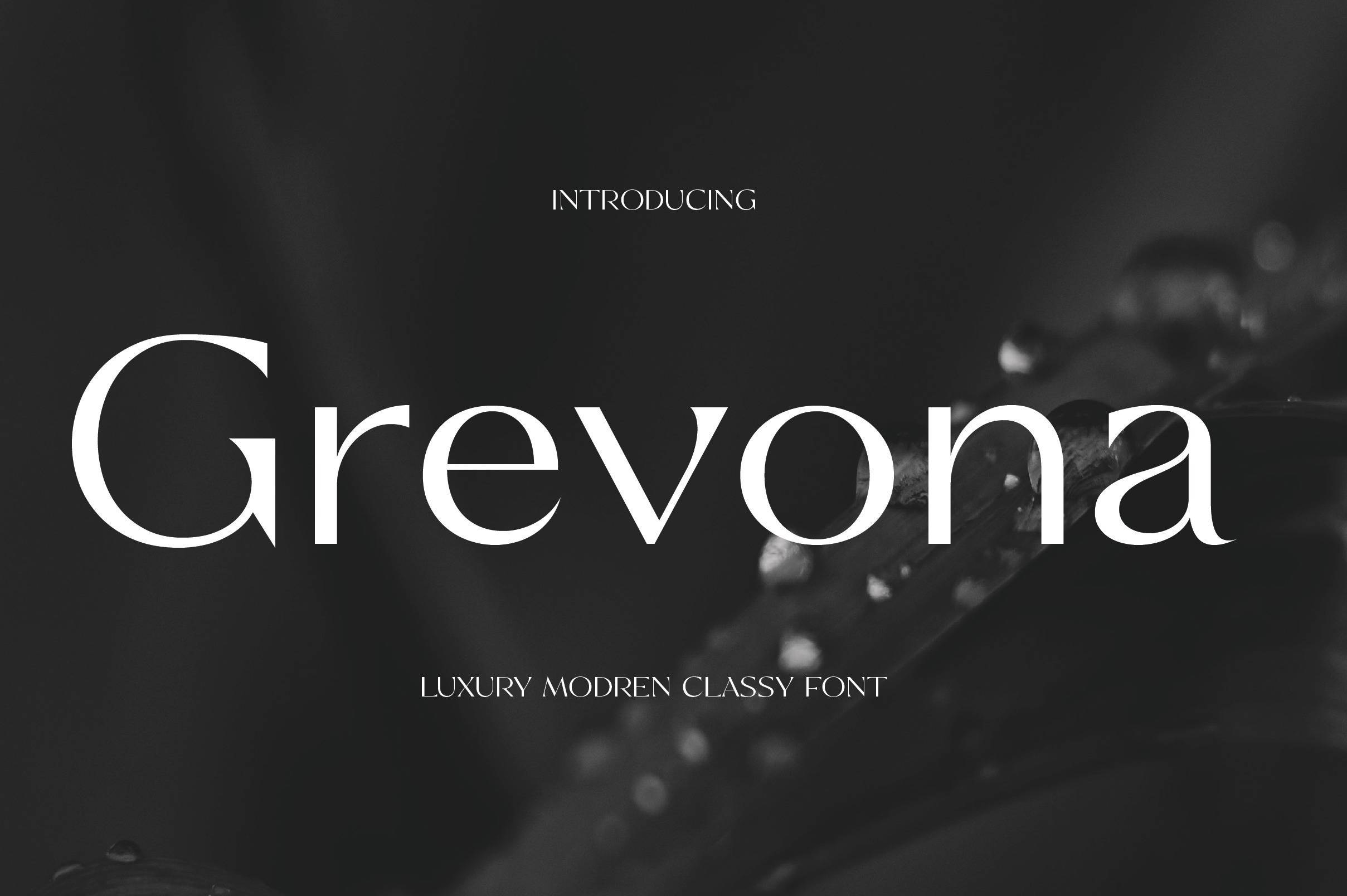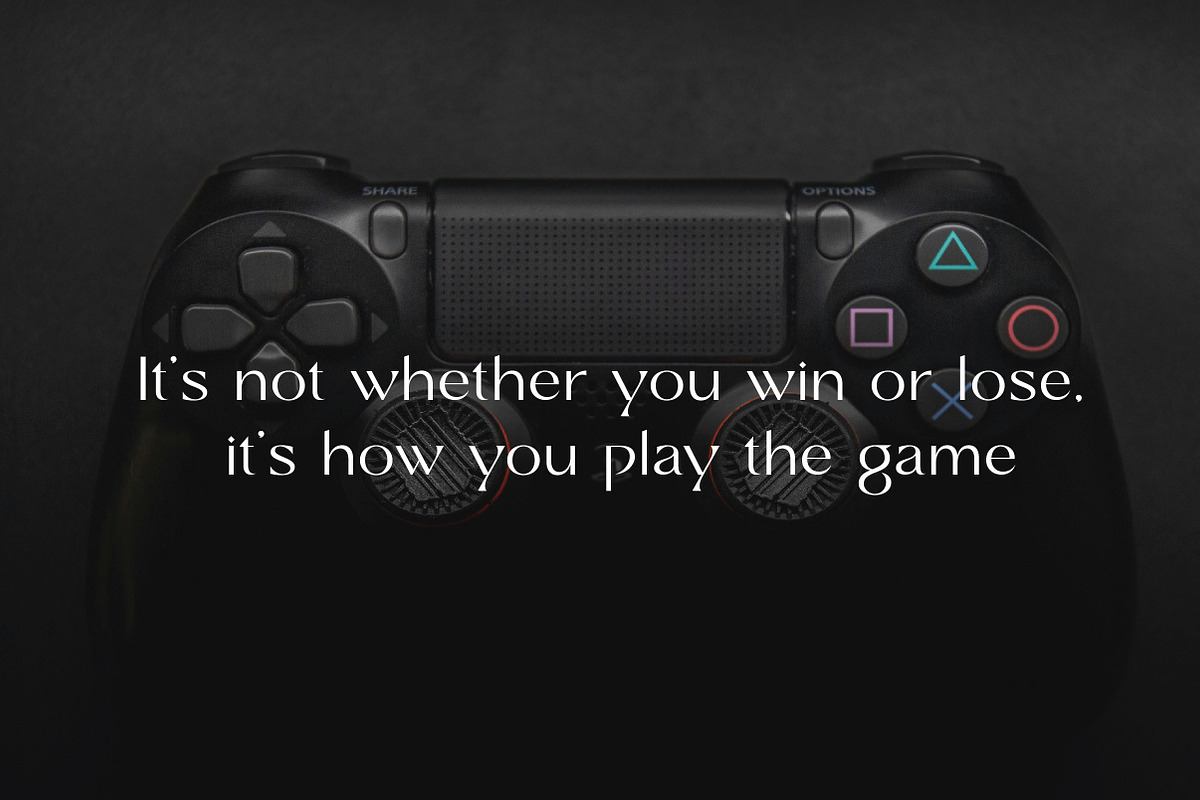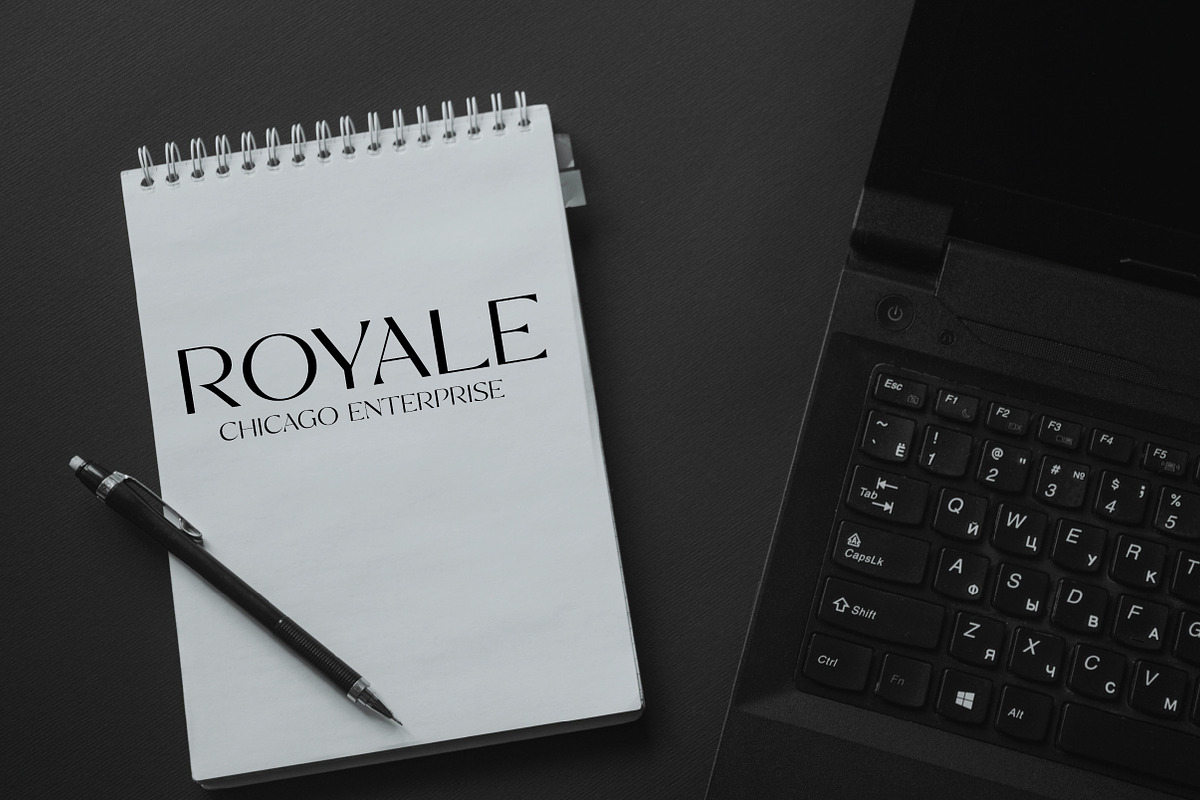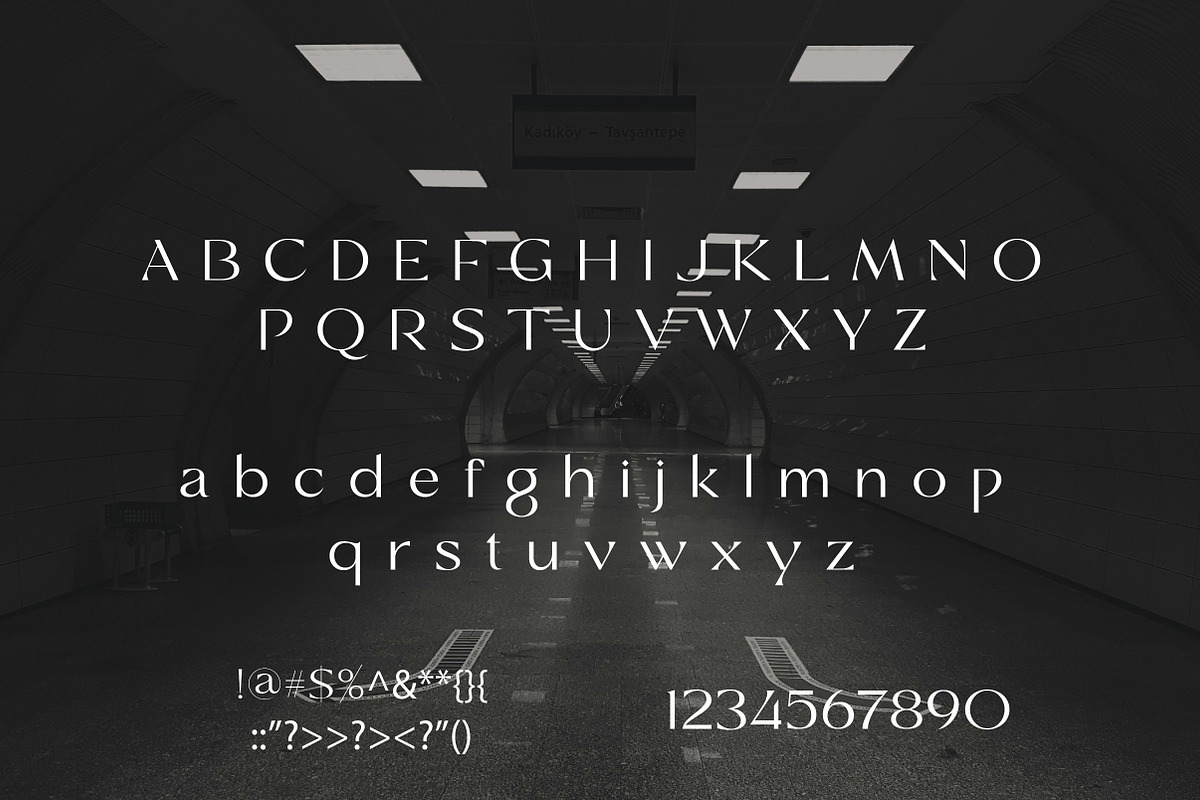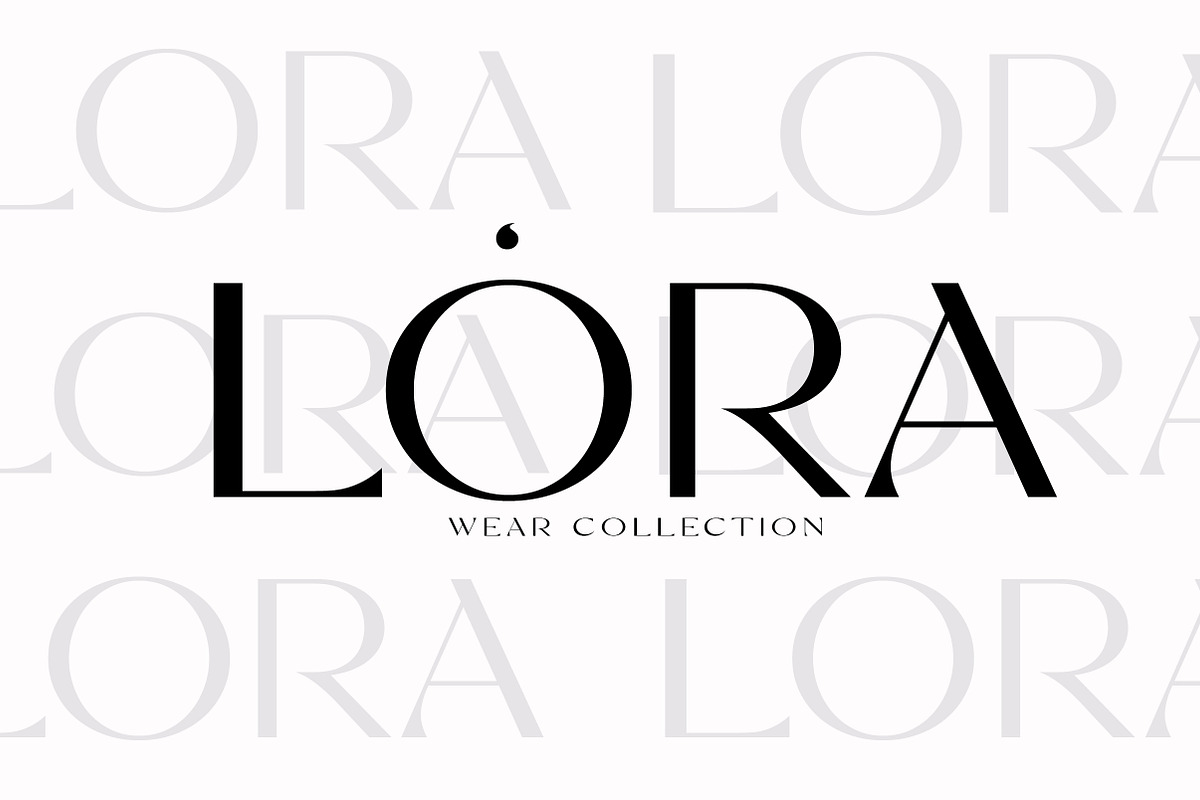
Grevona | Refined Serif Typeface
Grevona is a refined and versatile serif typeface that combines classic elegance with modern simplicity. The Regular style features clean lines, elegant serifs, and well-balanced letterforms—ideal for branding, editorial design, product packaging, logos, websites, and refined print applications. Grevona is designed to perform equally well in both display and paragraph text, offering excellent legibility while maintaining a polished, sophisticated presence. It’s the perfect choice for designers who seek to communicate clarity, professionalism, and timeless charm across a variety of creative projects.
Grevona is your go-to serif font for clean, elegant, and impactful design—whether modern or classic in tone.